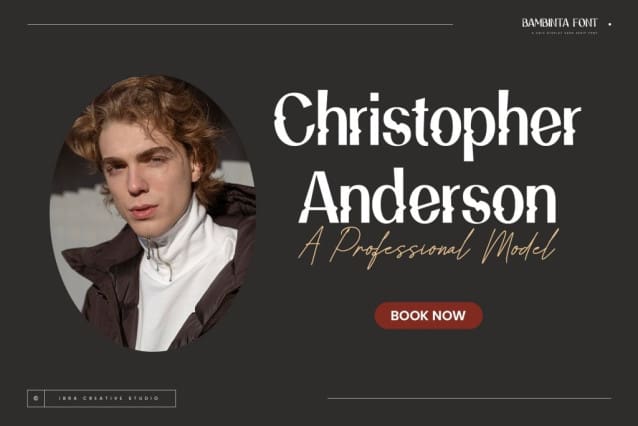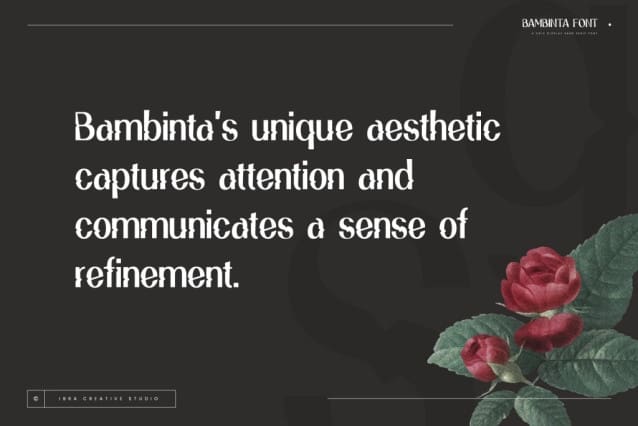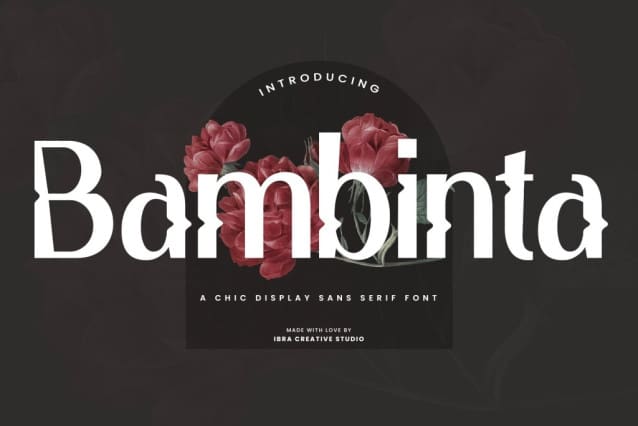
Bambinta Display Font
Bambinta Display Font, a chic display sans-serif font, effortlessly combines sophistication with modernity, making it an ideal choice for contemporary design projects. With its clean lines, geometric shapes, and well-balanced proportions, Bambinta exudes a timeless elegance that enhances visual appeal. The font’s distinct characters strike a perfect balance between simplicity and stylish flair, making it versatile for various applications such as branding, editorial design, and signage. Bambinta’s unique aesthetic captures attention and communicates a sense of refinement, making it a go-to choice for designers seeking a sleek and fashionable typeface to elevate their creative endeavors.
Bambinta Display Font is perfect for branding projects, logo, wedding designs, social media posts, advertisements, product packaging, product designs, label, photography, watermark, invitation, stationery, game, fashion and any projects.